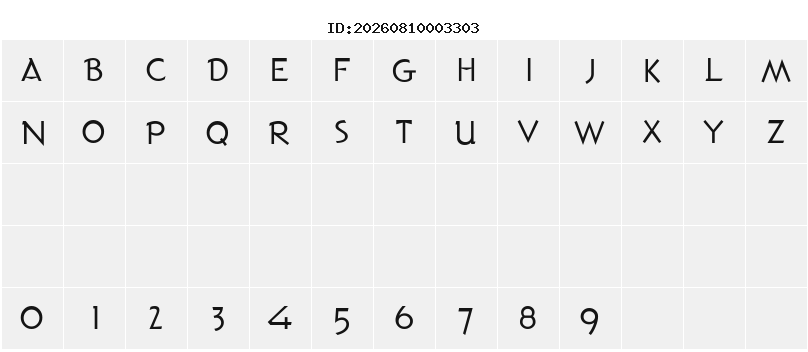
• Font Name: Pacific Clipper SG
Pacific Clipper SG.ttf is a modern, elegant sans-serif font designed for ultimate readability and visual harmony. Perfect for branding, headlines, web design, and print materials.